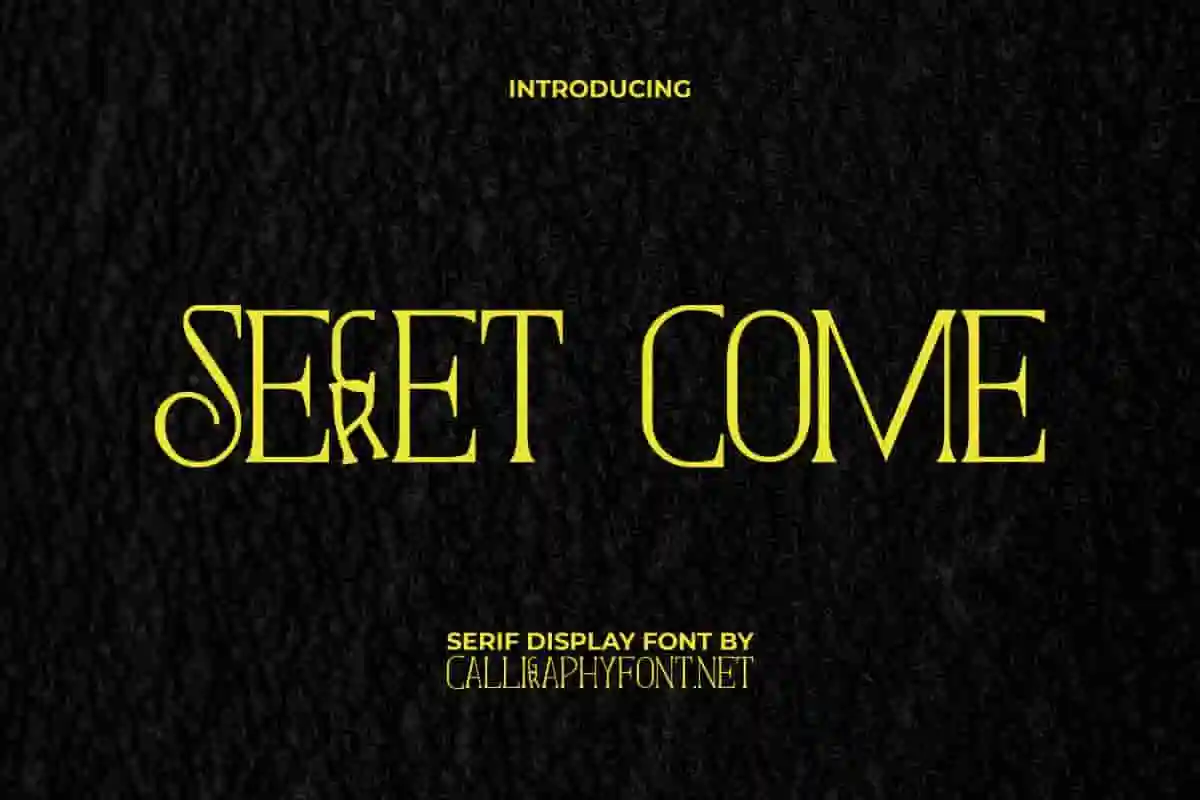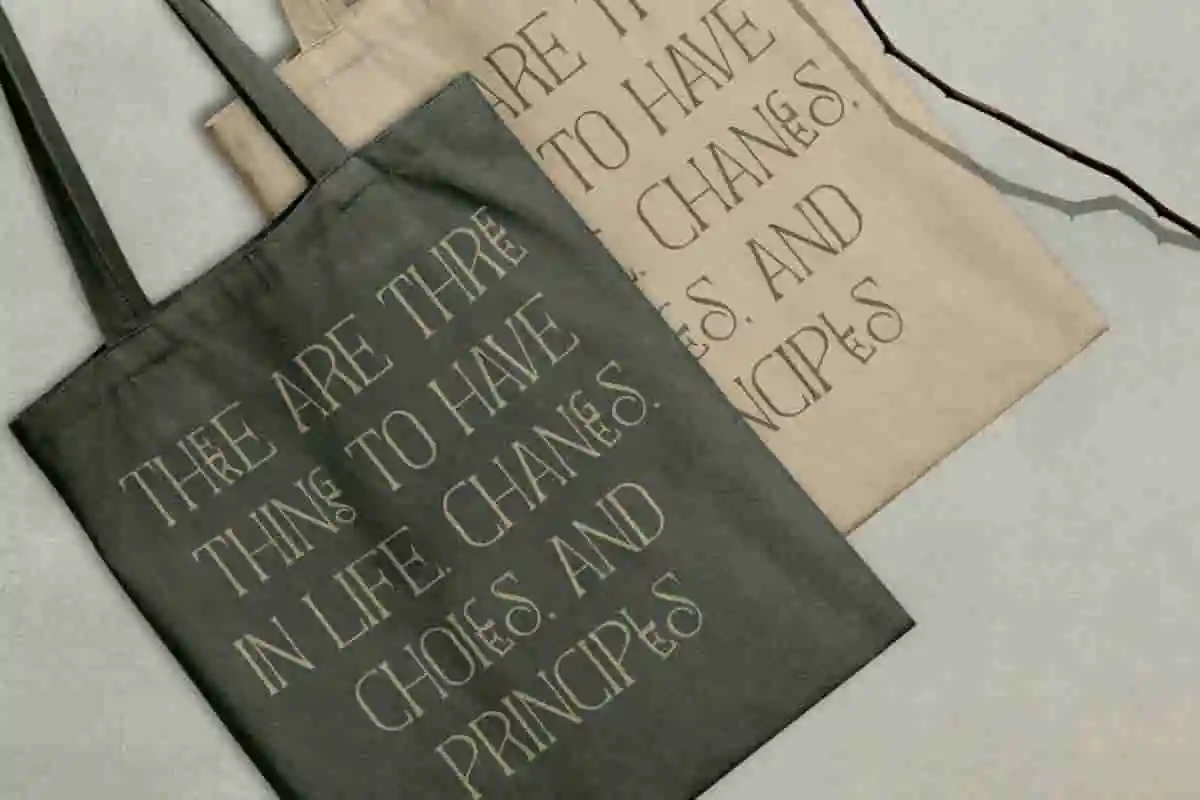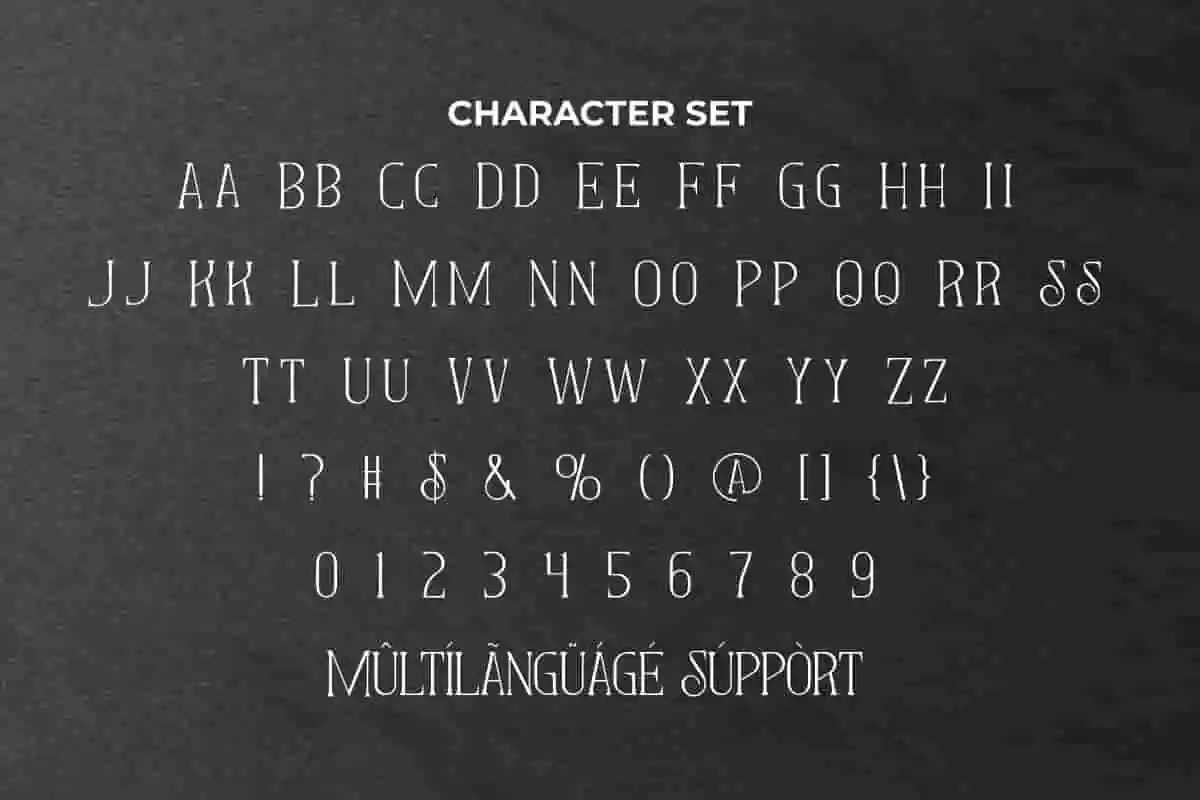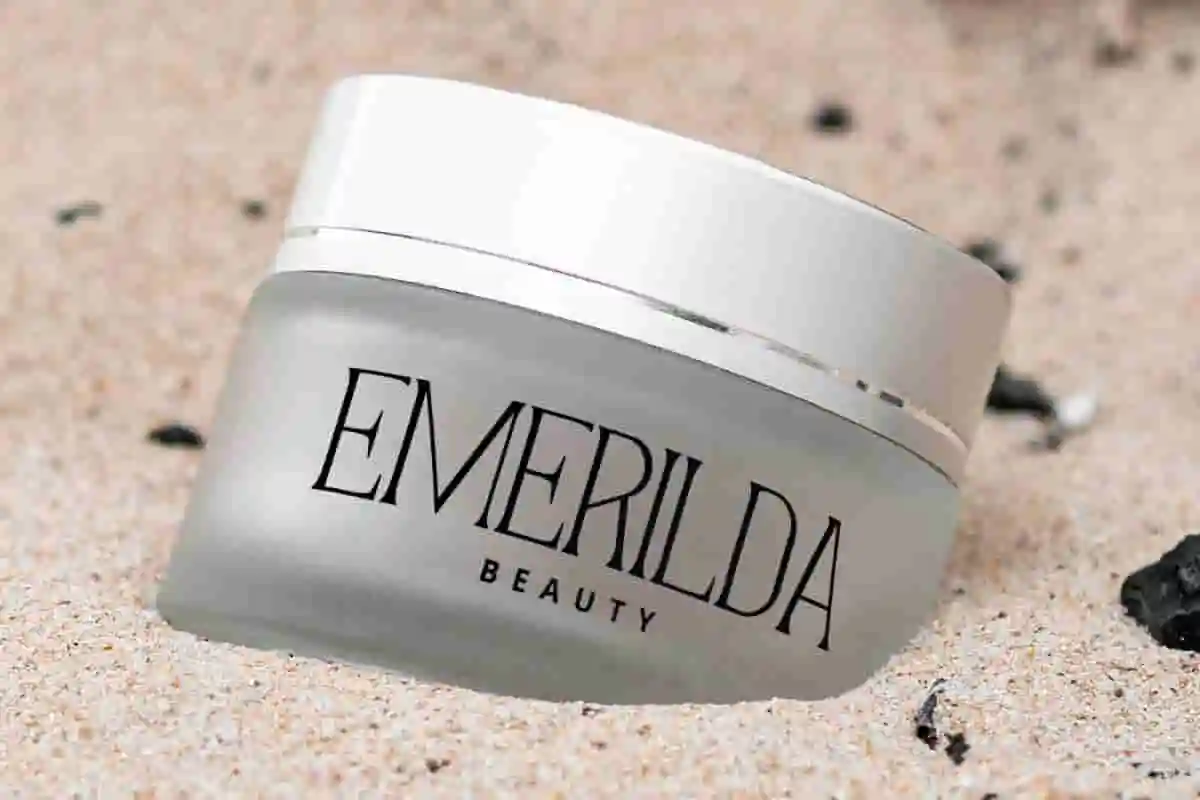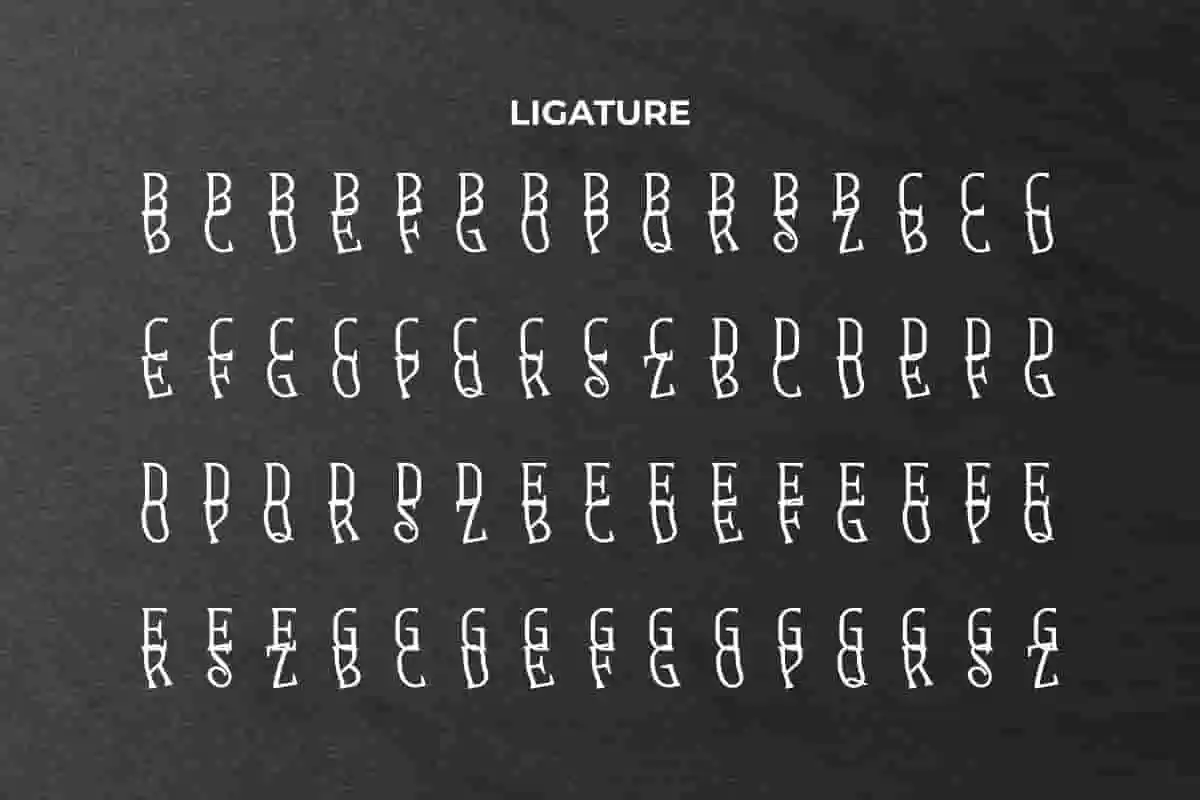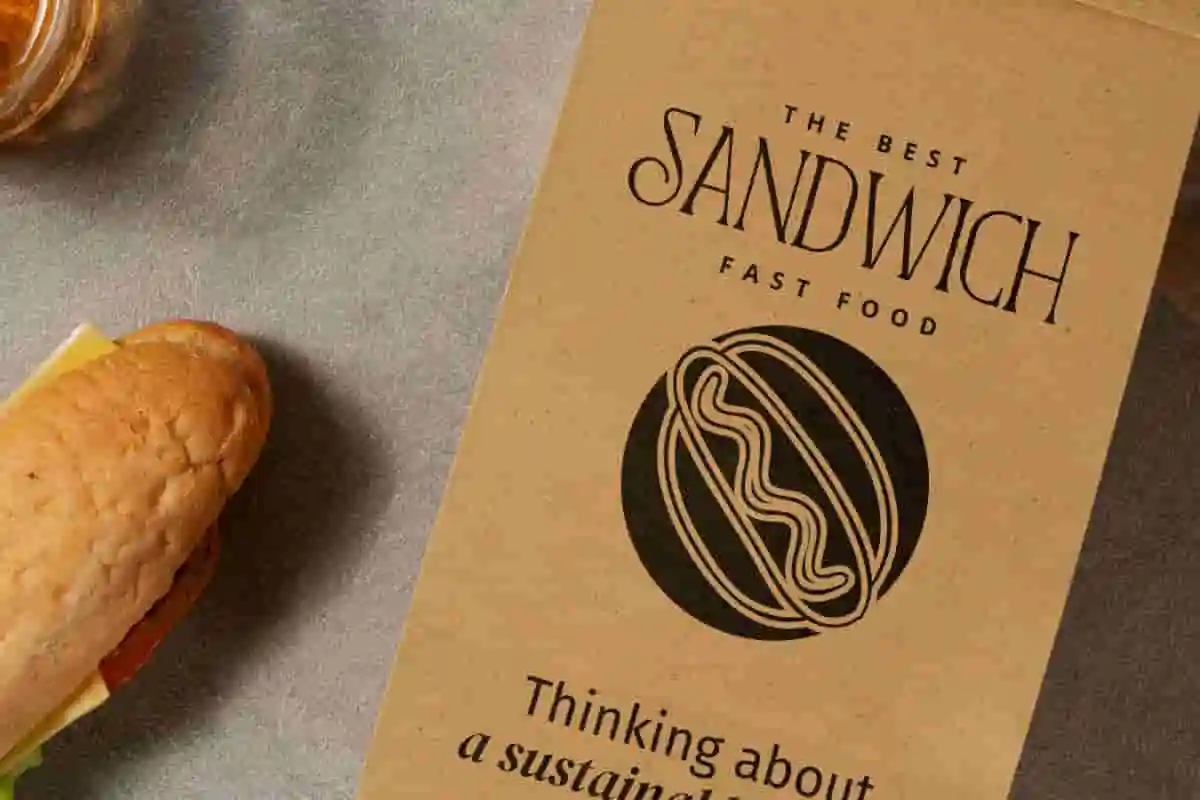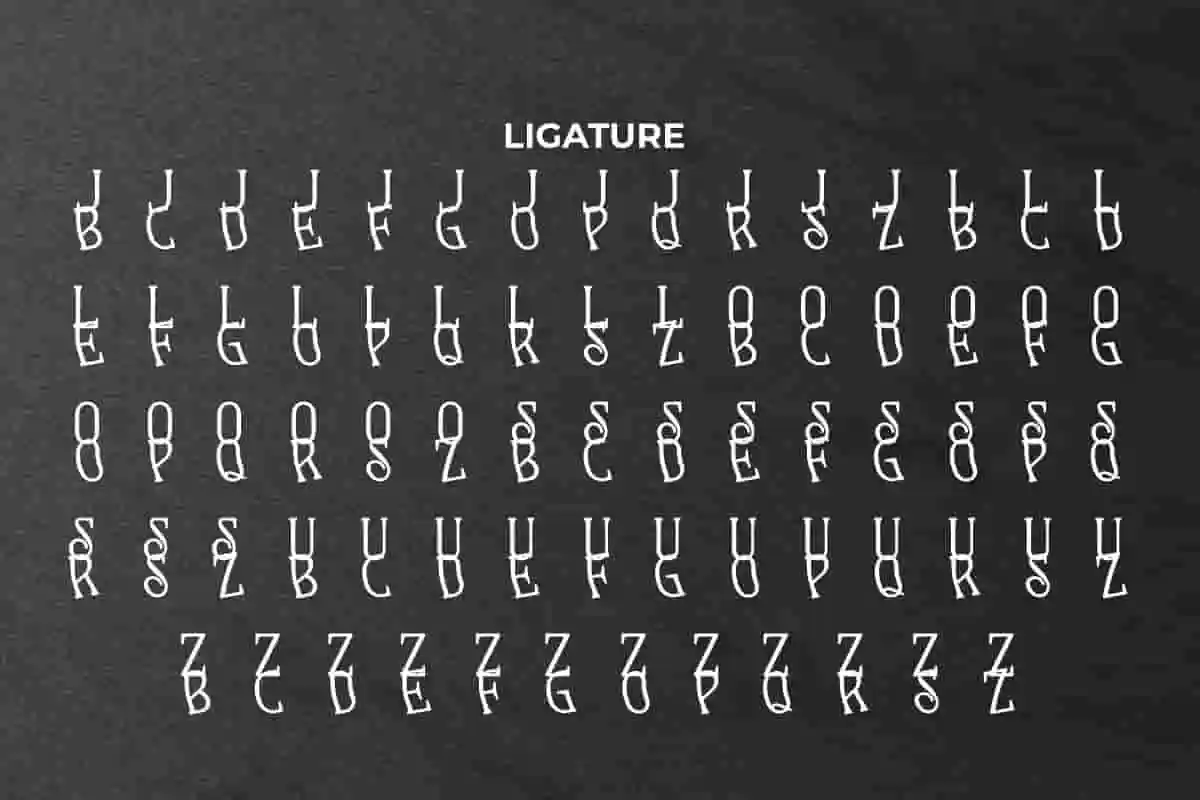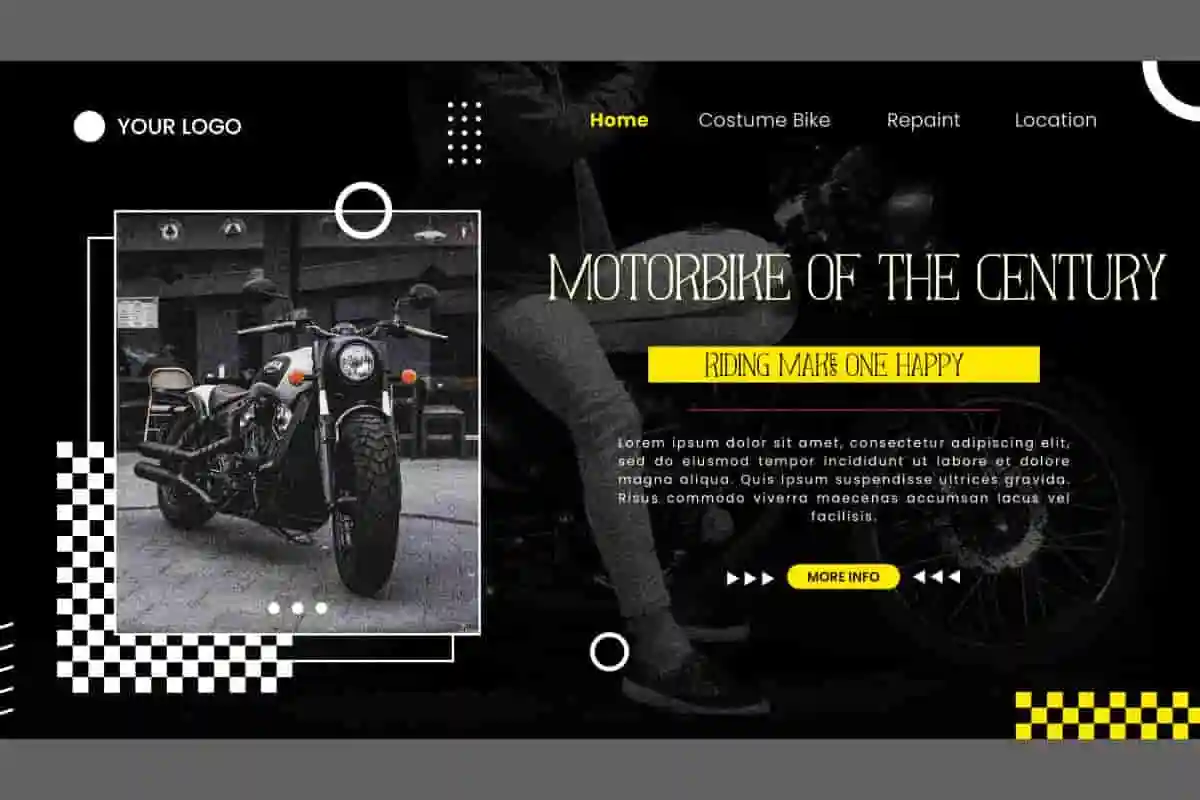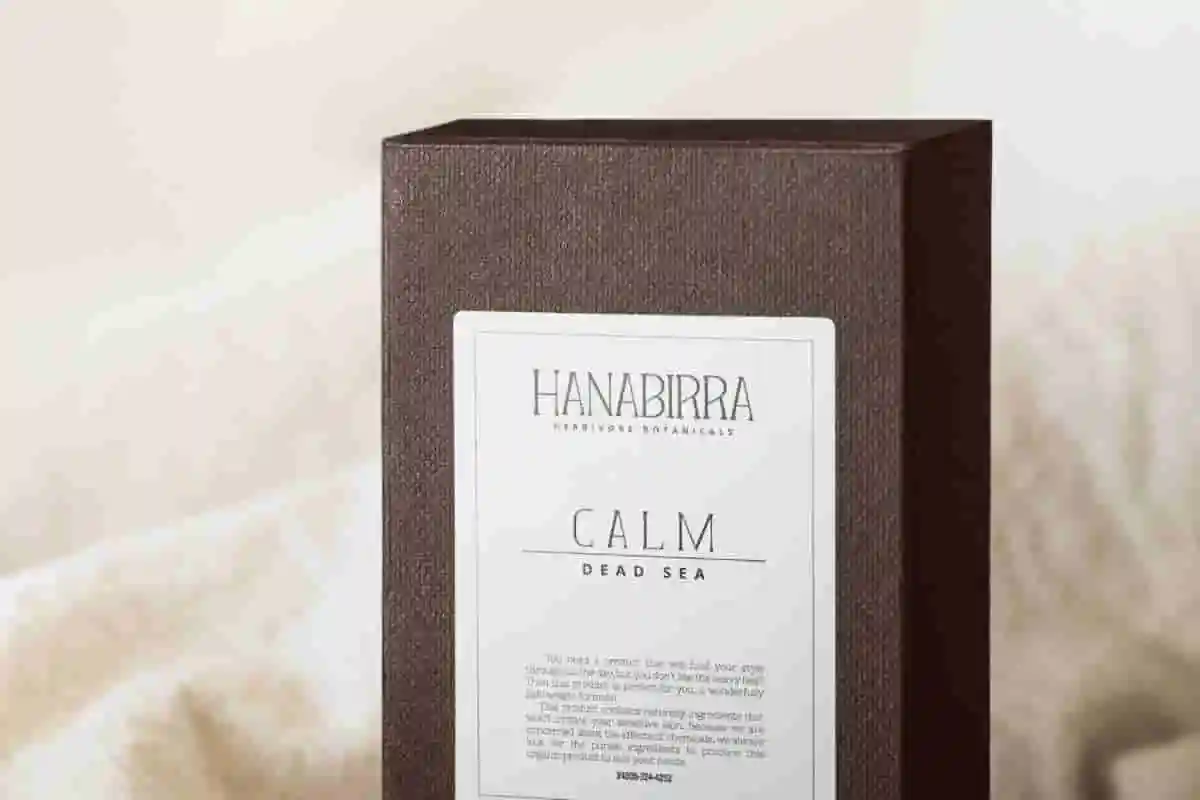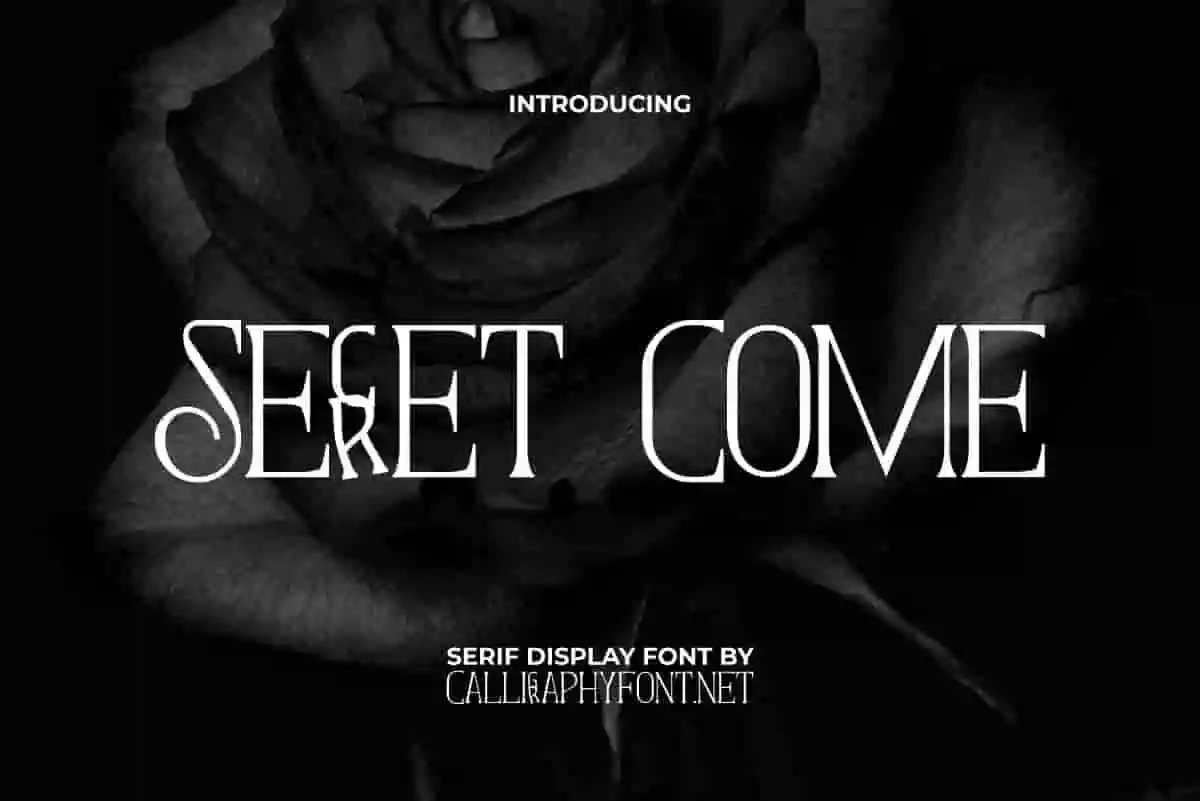
Secret Come Display Font
Secret Come Font is a classic stylistic serif display font with a unique set of ligature characters, it’s perfect for advertising, fragrance brand, packaging, or simply as a stylish text overlay to any background image.
Secret Come Font is a uniquely classic dark serif display font with mysterious overtones. The clean fonts connect with an art deco vibe giving it a modern character with a pleasant rhythm, making it awesome for any project, such as apps, billboard, blogs, branding, brochure, cards, cover, envelope design, flyer, invitation, label design, large type and logos, menu, packaging, poster, product brands, screen print, signage, social media posts, stationery, stickers, thank you card, title, wrap design, website, and many more!
Uncover the magic of typography with Secret Come Display Font, a bold and stylish display font designed to intrigue, captivate, and stand out. With a mysterious edge and confident curves, this typeface brings dramatic flair to any design — whether it’s for posters, branding, album covers, or cinematic titles. Crafted to command attention, Secret Come combines sharp elegance with a slightly edgy, noir-inspired aesthetic.
Step into bold design with Secret Come Display Font, a sleek and daring display typeface crafted for standout headlines, branding, and visual storytelling. Designed with unique letterforms and strong contrast, this font blends mystery, elegance, and attitude — perfect for projects that demand attention.
Unlock the power of bold design with Secret Come Display Font, a dynamic and captivating display font that commands attention and exudes confidence. Designed with sharp lines, high contrast, and an air of mystery, this font is perfect for branding, editorial layouts, movie posters, and more.
- Mysterious & Stylish Design
- Perfect for Display Use
Secret Come Font is an original vintage serif display font that brings a unique visual to any industry, such as accessories, advertisement, apparel, architect, automotive, botanist, café, content creator, event organizer, fast food, furniture, graphic design, handicraft, homeware, interior design, musician, perfume, photography, printing, publishing, retro restaurant, skincare, and anything that is most important requires a unique retro touch.
Secret Come Font comes with a full set of ALL CAPS for Uppercase and Lowercase Basic Characters, Number, a large range of Punctuation, Symbol and Ligature. It’s a versatile font that works well on both large and small size scales. The font has also been equipped with multilingual support that is ready to use either on Windows or Mac machines with a simple installation. It’s tested to work well in the Adobe Apps (Illustrator, Adobe InDesign, Adobe Photoshop) CorelDraw, and others. PUA Encode Characters means you can access all the characters easily – Fully accessible without additional design software.